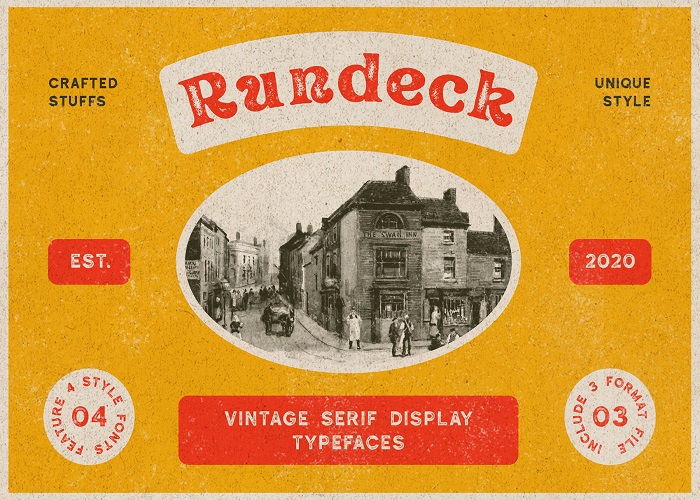
Rundeck is a vintage serif display font inspired by classic retro music posters. It brings handcrafted character and nostalgic charm to any design, with four distinct styles to help you achieve a variety of looks: Regular, Smooth, Rough, and Texture.
Perfect for logotypes, posters, labels, badges, packaging, branding, and other custom graphics, Rundeck is a versatile choice for designers wanting a retro feel.
- Four font styles: Regular, Smooth, Rough, Texture
- Distinct vintage serif display style
- Four complementary styles for flexible design options
- Ideal for branding, packaging, posters, logos, labels, and badges